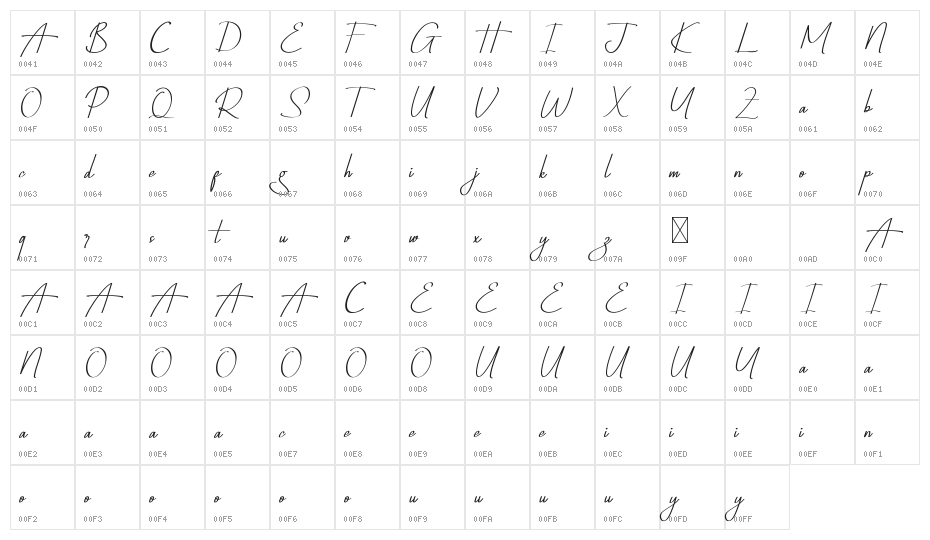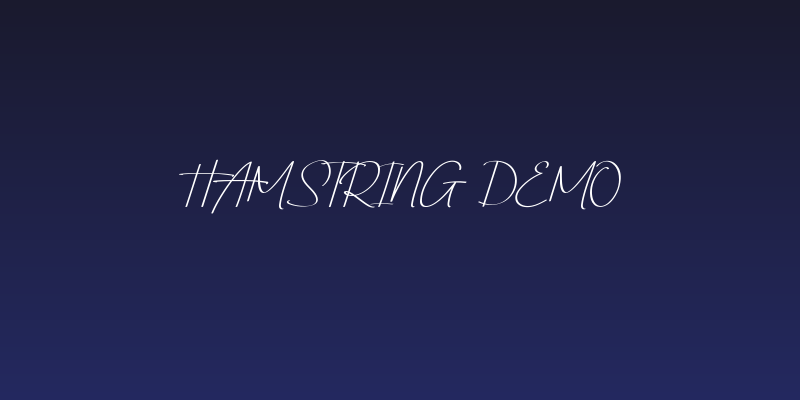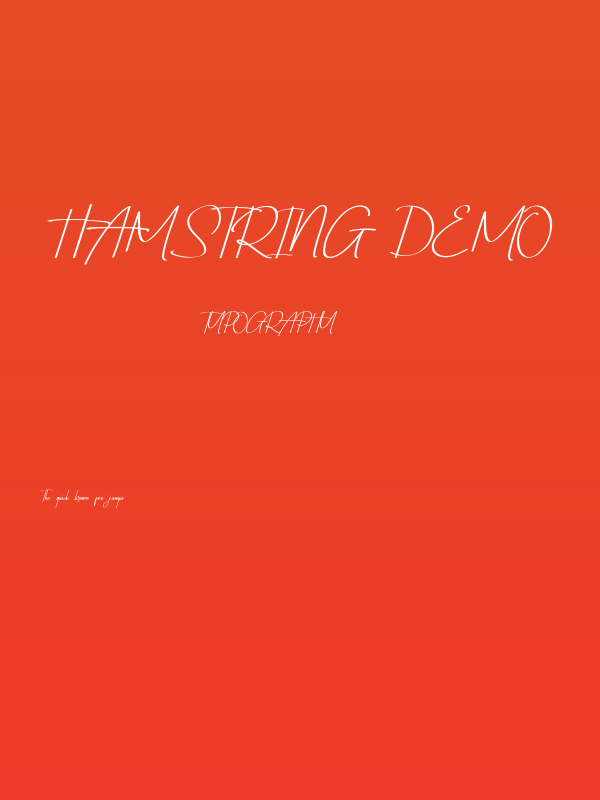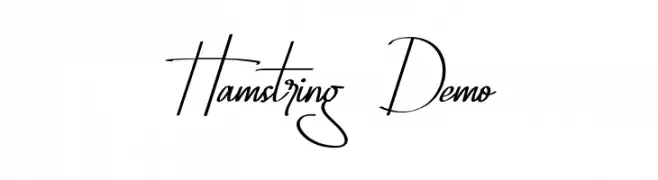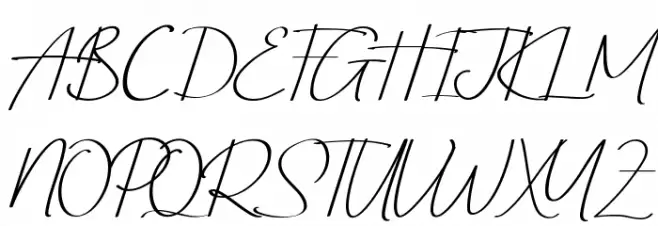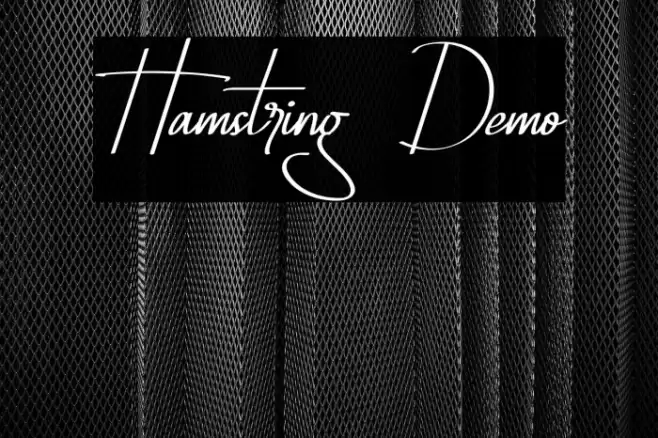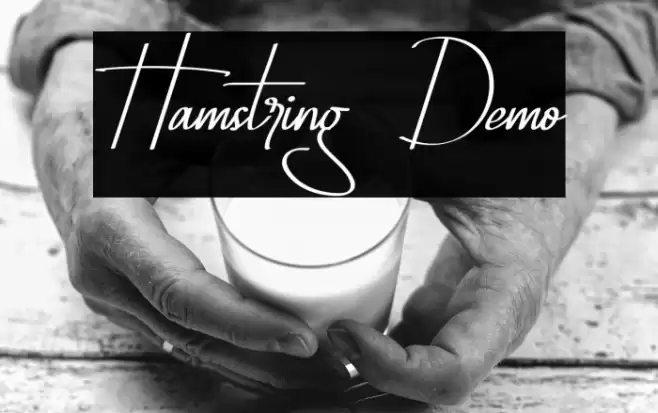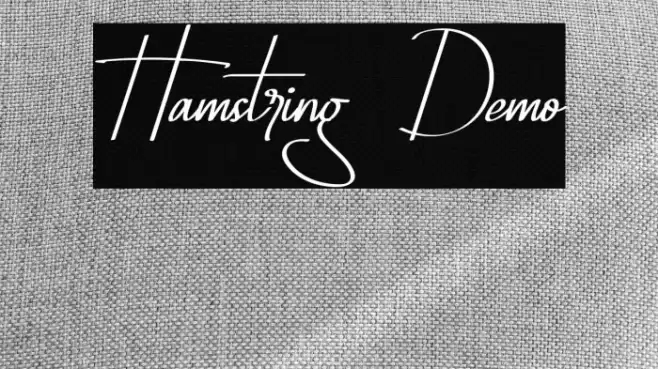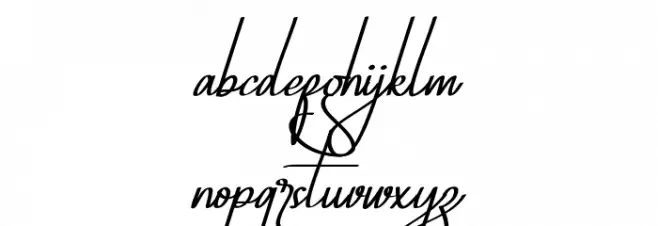
Hamstring Demo Font
Hamstring Demo Description
A cursive, handwritten style font with elegant, flowing lines and a delicate appearance.
| Overall Style | Elegant, Script, Handwritten |
| Use Case | Invitations, greeting cards, logos, branding, personal stationery. |